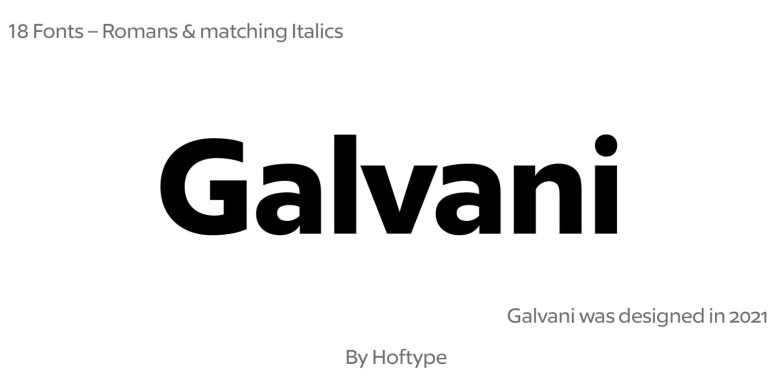
Galvani Font
Galvani typeface is the family font that has 9 weights and 9 italics. Galvani Sans designed for elegant and outstanding purposes for your project. With its straight lines and rectangular shapes, and its clean and coolish appearance, Galvani unites some of the principal sans design features of the last decades.
All weights contain small caps, ligatures, superior characters, proportional lining figures, tabular lining figures, proportional old style figures, lining old style figures, matching currency symbols, fraction- and scientific numerals and matching arrows.